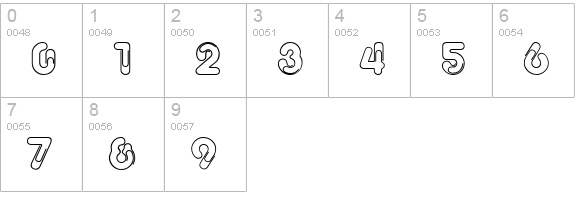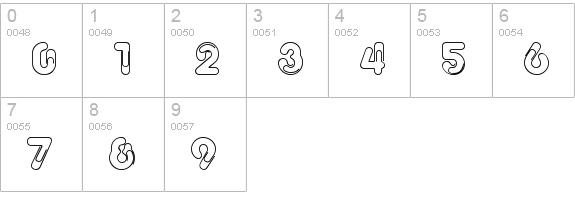
Introducing Paper Clip, a playful and versatile font that will add a touch of whimsy to any project. With its unique combination of rounded edges and straight lines, Paper Clip captures the essence of creativity and imagination. This font is perfect for a wide range of designs, from children's books and logos to posters and invitations. One of the best things about Paper Clip is that it is free! Yes, you heard it right. This incredible font is freely available to download at FontsMarket.com. Now you can enjoy the beauty and charm of Paper Clip without any cost. Whether you're a professional designer or someone who simply loves experimenting with fonts, Paper Clip will surely become your go-to choice. The versatility of Paper Clip is another reason why it has become a favorite among designers. Its clean and legible letters make it suitable for both headlines and body text. You can easily adjust the font size and spacing to create a harmonious layout that suits your needs. Whether you want to create a bold and attention-grabbing design or a subtle and elegant one, Paper Clip has got you covered. The playful nature of Paper Clip makes it a great choice for designs targeting a younger audience. Its friendly and approachable appearance will instantly appeal to children and adults alike. From children's books and educational materials to party invitations and greeting cards, Paper Clip adds a touch of fun and excitement to every project. So why wait? Head over to FontsMarket.com and download Paper Clip today. With its unique and captivating design, this font is sure to make your designs stand out from the crowd. Don't miss out on the opportunity to add a free and delightful font to your collection. Embrace the creativity that Paper Clip brings and let your imagination soar.